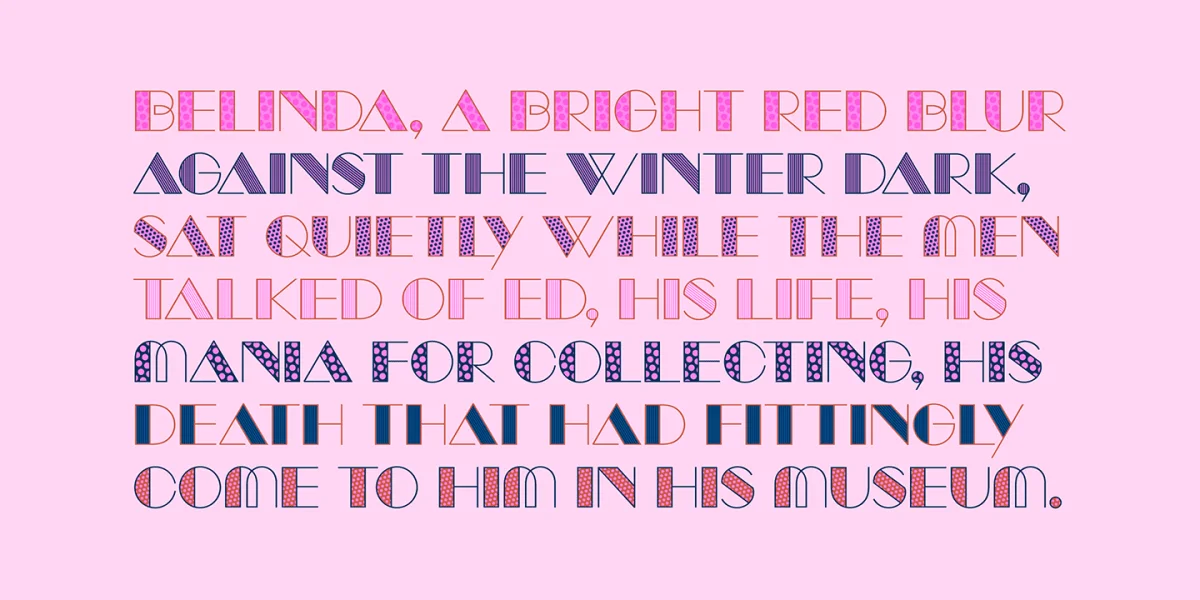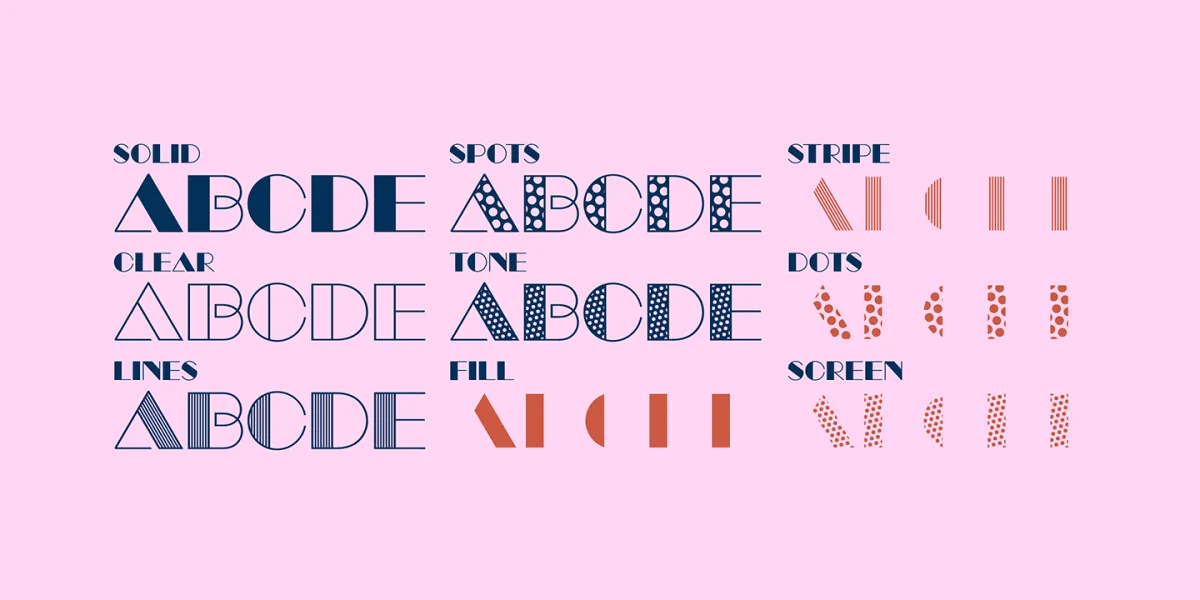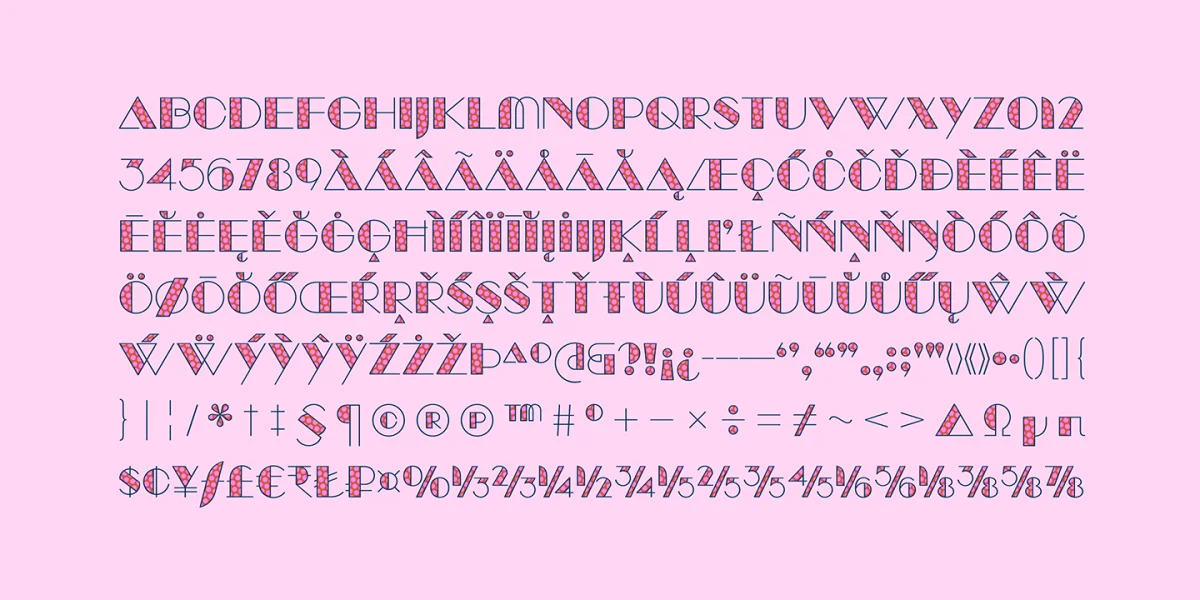
Welcome to the world of Manbow, where creativity knows no bounds! Introducing the stunning geometric display typeface that is poised to take your designs to the next level. With its solid, transparent, stripe, polka-dot, and screen patterns, Manbow is the ultimate blend of classic Art Deco design and modern, futuristic letterforms.
Get ready to impress your audience with the unique and sophisticated voice of Manbow. The geometric shapes and imaginative offsets make it perfect for grabbing attention and leaving a lasting impression. But that’s not all! By combining layers, you can achieve a stunningly colorful look that will elevate your designs to new heights.
With Manbow, the possibilities are endless. Experiment with pattern layers, try out different color combinations, and let your creativity run wild. The bold and innovative design of Manbow is sure to leave a lasting impression, no matter what your message is. So go ahead, give it a try and discover the limitless possibilities of this amazing typeface.
Most Latin-based European writing systems are supported, including the following languages. Afaan Oromo, Afar, Afrikaans, Albanian, Alsatian, Aromanian, Aymara, Bashkir (Latin), Basque, Belarusian (Latin), Bemba, Bikol, Bosnian, Breton, Cape Verdean, Creole, Catalan, Cebuano, Chamorro, Chavacano, Chichewa, Crimean Tatar (Latin), Croatian, Czech, Danish, Dawan, Dholuo, Dutch, English, Estonian, Faroese, Fijian, Filipino, Finnish, French, Frisian, Friulian, Gagauz (Latin), Galician, Ganda, Genoese, German, Greenlandic, Guadeloupean Creole, Haitian Creole, Hawaiian, Hiligaynon, Hungarian, Icelandic, Ilocano, Indonesian, Irish, Italian, Jamaican, Kaqchikel, Karakalpak (Latin), Kashubian, Kikongo, Kinyarwanda, Kirundi, Kurdish (Latin), Latvian, Lithuanian, Lombard, Low Saxon, Luxembourgish, Maasai, Makhuwa, Malay, Maltese, Maori, Moldovan, Montenegrin, Ndebele, Neapolitan, Norwegian, Novial, Occitan, Ossetian (Latin), Papiamento, Piedmontese, Polish, Portuguese, Quechua, Rarotongan, Romanian, Romansh, Sami, Sango, Saramaccan, Sardinian, Scottish Gaelic, Serbian (Latin), Shona, Sicilian, Silesian, Slovak, Slovenian, Somali, Sorbian, Sotho, Spanish, Swahili, Swazi, Swedish, Tagalog, Tahitian, Tetum, Tongan, Tshiluba, Tsonga, Tswana, Tumbuka, Turkish, Turkmen (Latin), Tuvaluan, Uzbek (Latin), Venetian, Vepsian, Võro, Walloon, Waray-Waray, Wayuu, Welsh, Wolof, Xhosa, Yapese, Zapotec Zulu and Zuni.